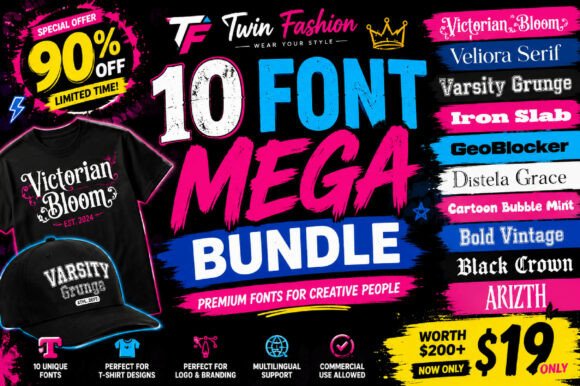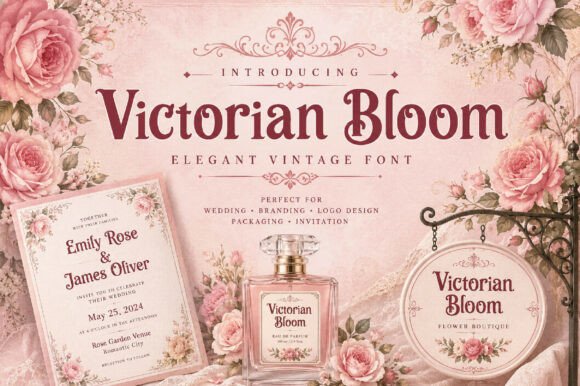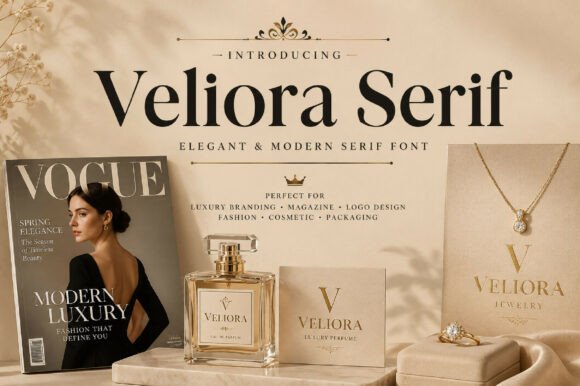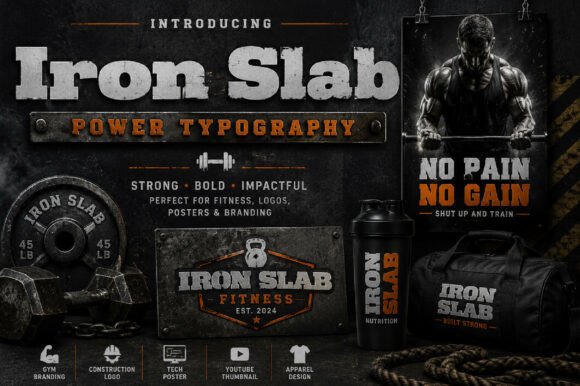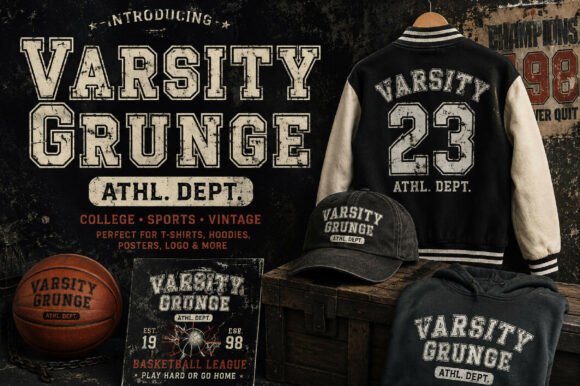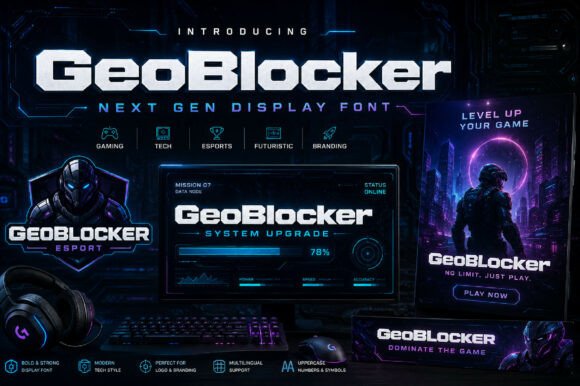
Introduction to All-in-one Mega Bundle Font
All-in-One Font Bundle is a carefully curated collection of 10 unique fonts designed to support a wide range of creative projects.
This bundle includes different font styles, making it perfect for designers, crafters, small business owners, and content creators who need flexible typography options in one complete pack From playful display fonts to elegant scripts, bold headlines, decorative styles, and creative handwritten looks, this bundle gives you everything you need to create beautiful and eye-catching designs.
All-in-one Mega Bundle Font offers exceptional quality and versatility, making it a valuable addition to your design toolkit. Whether you’re creating for personal projects or commercial use, All-in-one Mega Bundle Font delivers professional results.